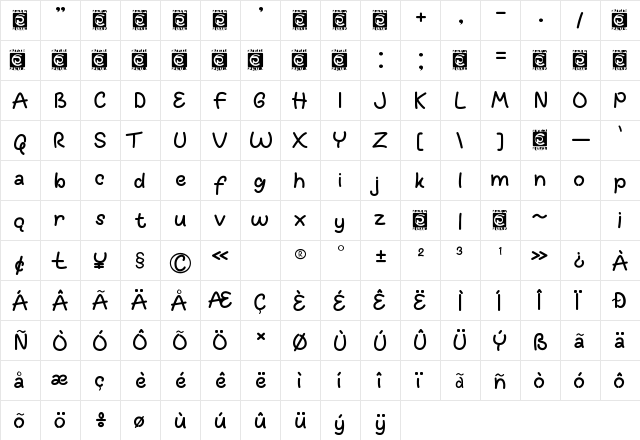
Funkids Regular
| Foundry | Putracetol Studio, Karanganyar. |
| Designer | Putra Novembria Candra Kusuma |
Design Context for Funkids Typeface
Funkids has an approachable, lighthearted character — its loose, expressive forms are well-suited to children's content, casual branding, and fun-first design.
Great for children's books, toy packaging, family event branding, and casual consumer-facing design.
Font Pairing: Pairs well with a rounded or humanist sans for body copy, maintaining the friendly tone without relying on Funkids to carry extended reading.
Pro Tip: Avoid using Funkids for long passages of text — it works best for headlines, labels, and short calls to action.